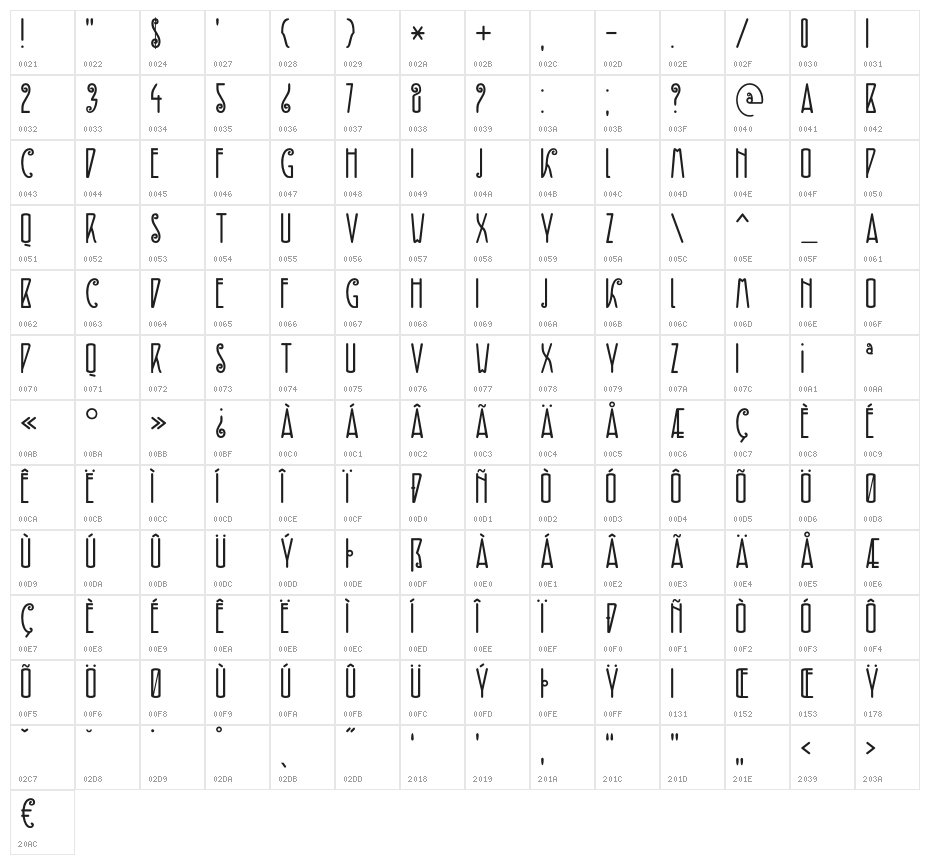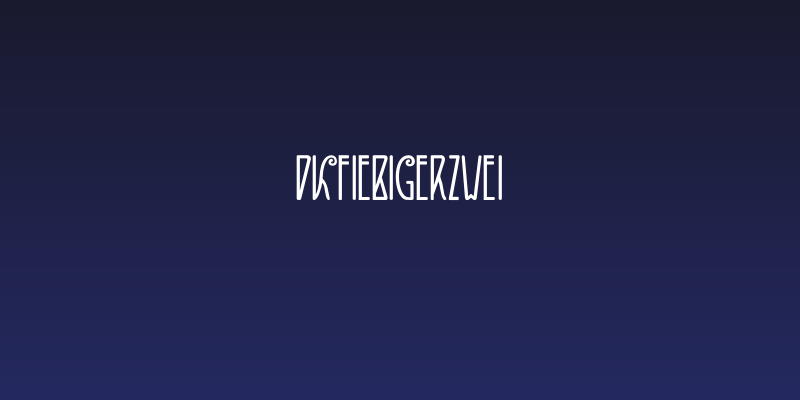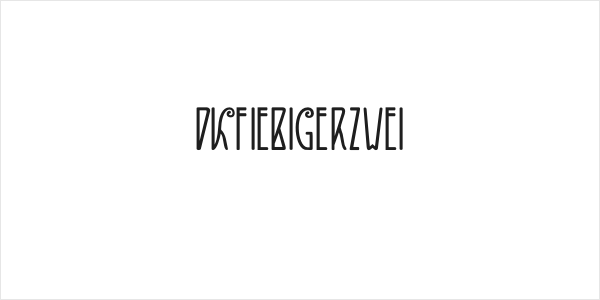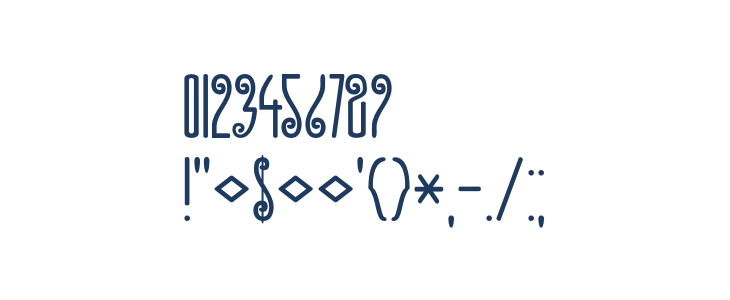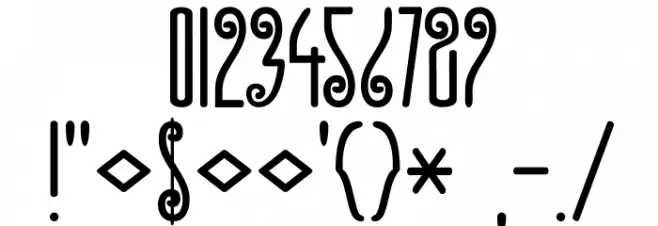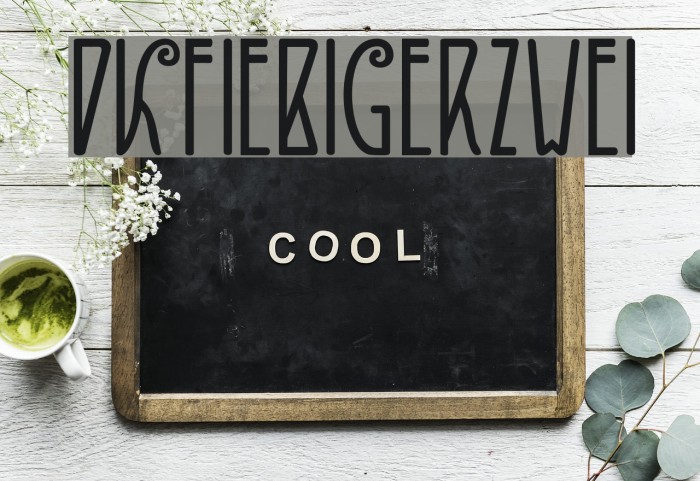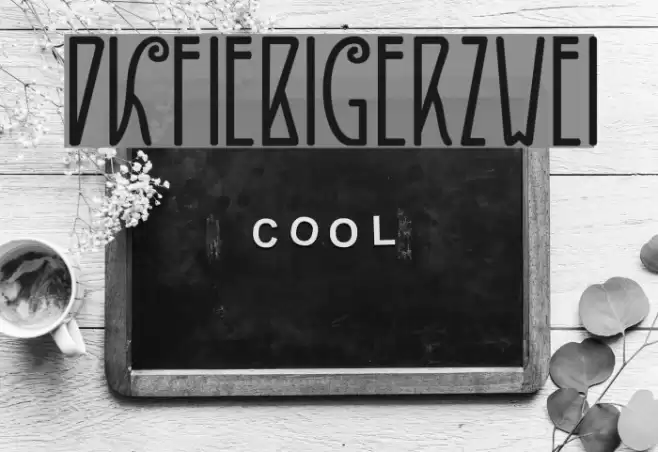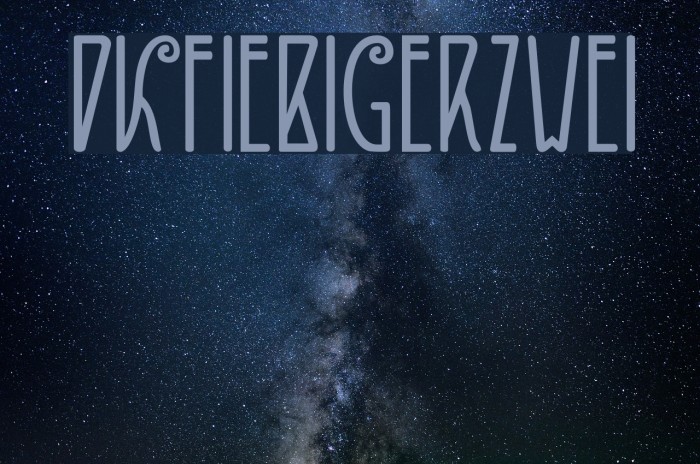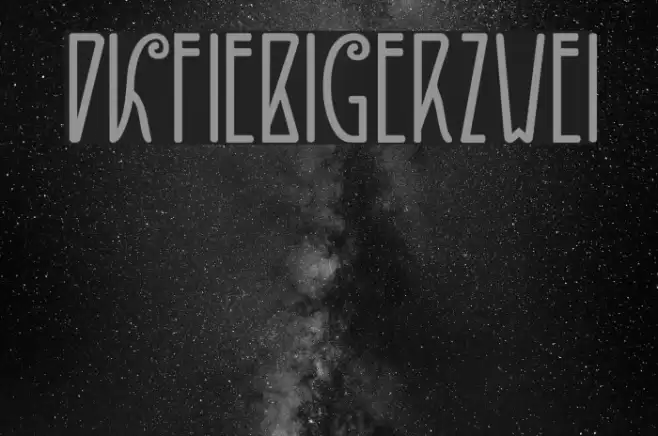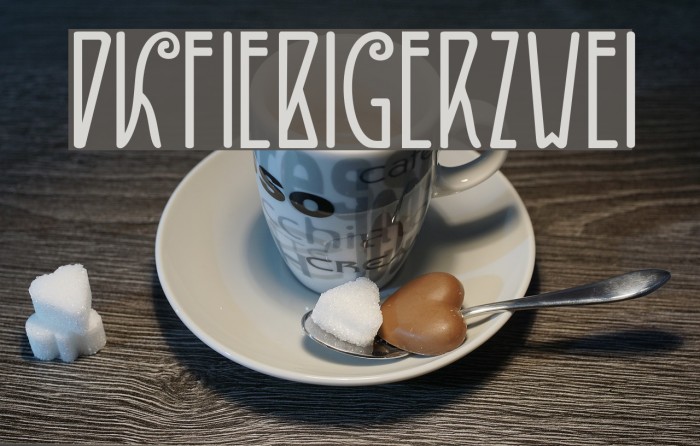
DKFiebigerZwei Font
DKFiebigerZwei Description
This font features a unique and artistic design with elongated, narrow characters that have a playful and whimsical flair. The uppercase letters are particularly distinctive, with some characters incorporating unexpected curves and angles, adding to the font's creative appeal. The lowercase letters maintain a consistent style, complementing the uppercase set with their own quirky touches. Numbers and special characters follow the same design principles, ensuring a cohesive look across all text. The overall appearance is both modern and retro, making it suitable for projects that require a touch of individuality and creativity.
| Overall Style | Modern, Retro |
| Proposed Projects | Ideal for creative projects such as posters, invitations, branding, and any design work that benefits from a unique and artistic touch. |